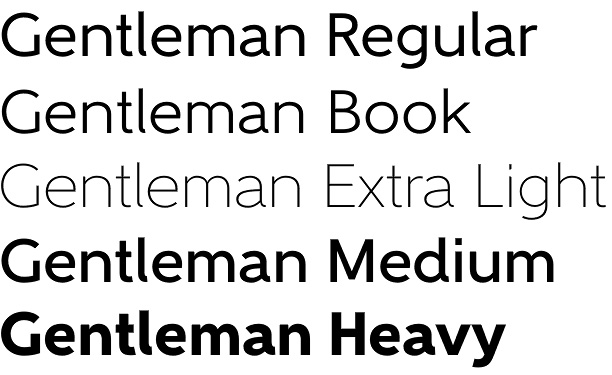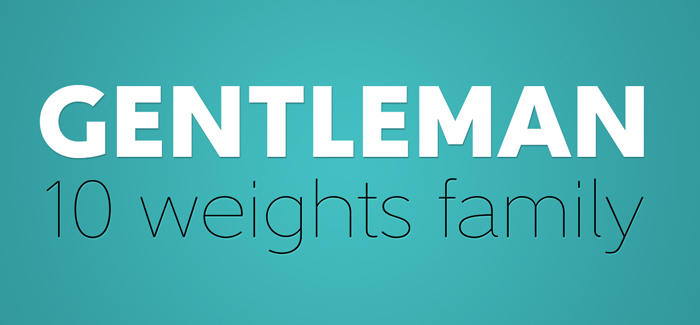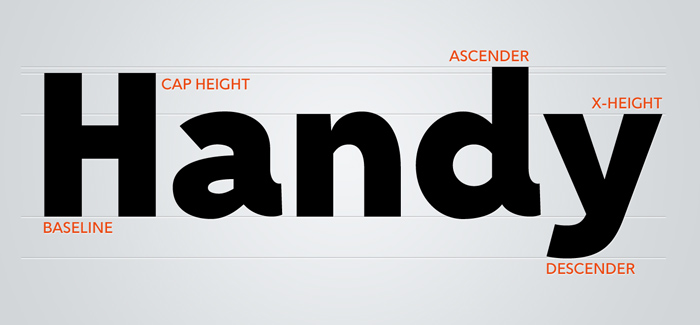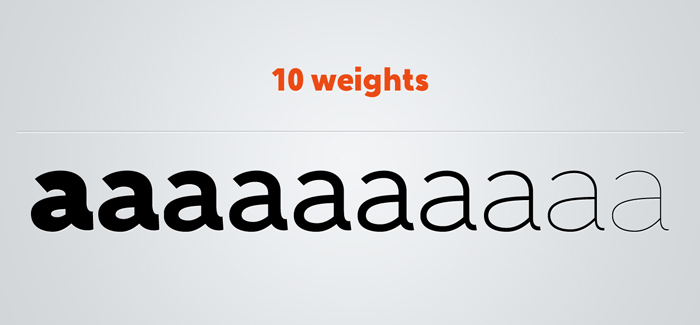
Gentleman font
Gentleman font is a sans-serif font family of 10 weights – from hairline to black – designed by Juraj Chrastina. It is a legible typeface with clear geometry and spiced with nice humanist terminals enhancing its identity. We think Gentleman name suits perfectly to this family because of its beautiful outlines and elegant letterforms yet looking tight, compact and with own presence. Gentlemant is surely good choice both for screen applications and print media. Its multipurpose spreads over poster design, logos, headlines, body texts, stationary and back labels. Also very good for books, magazines and newspapers – excellent choice even for small text size.